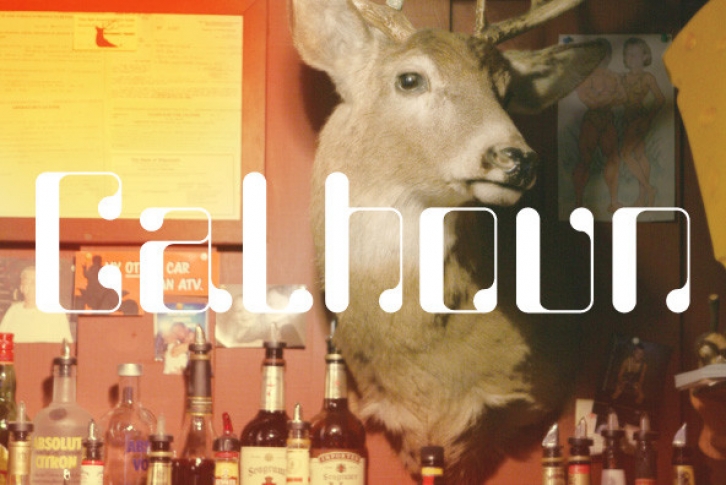
Built with both thick and thin lines this display font uses heavy round terminals giving this almost didone-style font a more playful and slightly stylish look. Perfect for magazines and publications as well as for identity and branding. The character set contains typical OpenType features in addition to small caps, and old style numbers.